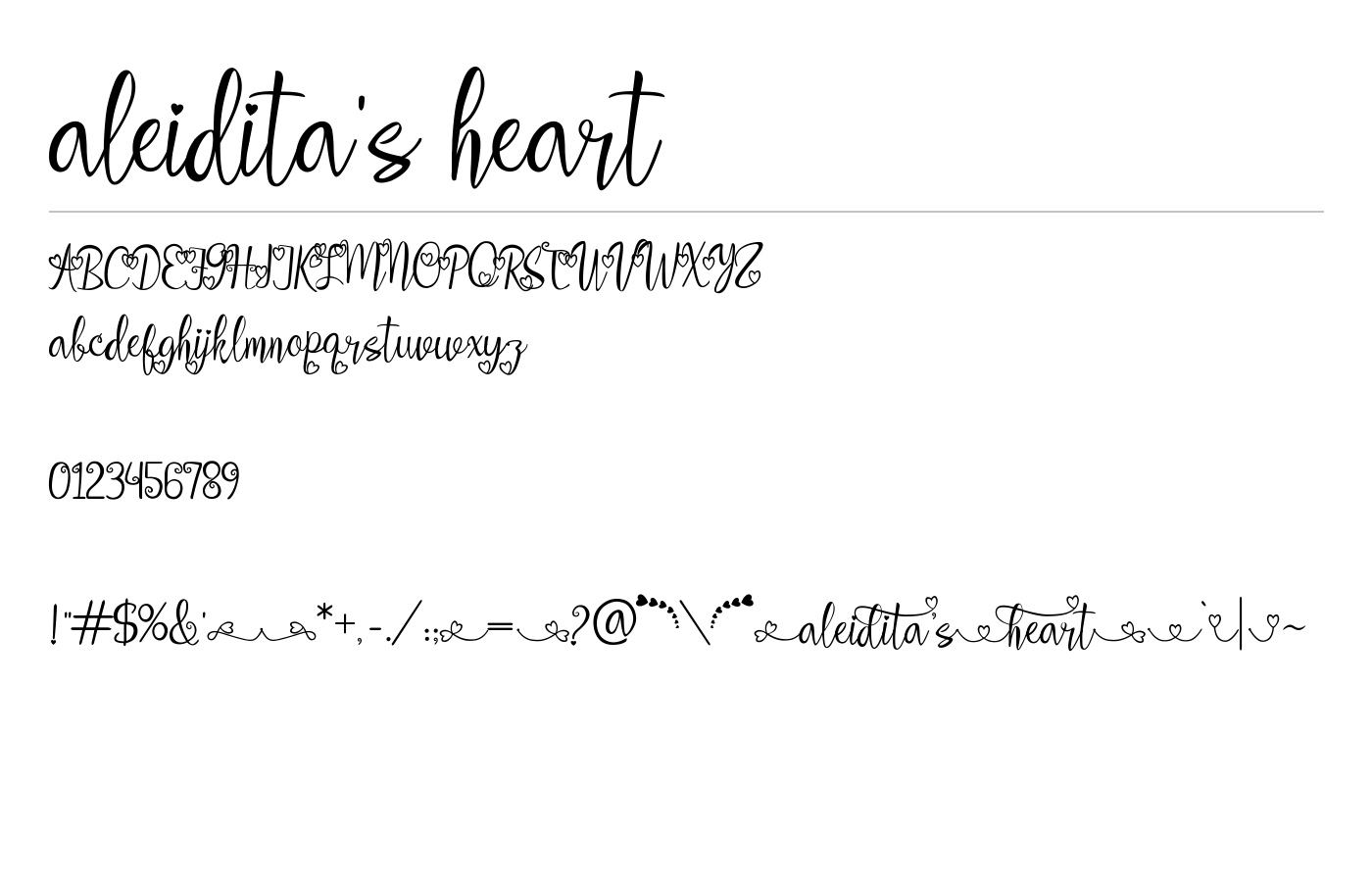
Aleidita’s Heart is a whimsical, hand-drawn script font with delicate, flowing strokes and charming heart-shaped decorative elements that create a playful and romantic vibe. Its thin weight and graceful letterforms make it perfect for wedding invitations, greeting cards, and feminine branding that seeks a sweet, personal touch. This font shines in creative, heartfelt designs where elegance and warmth need to come together effortlessly.
aleidita's heart Font
About aleidita's heart Font
| Font family | aleidita's heart Font |